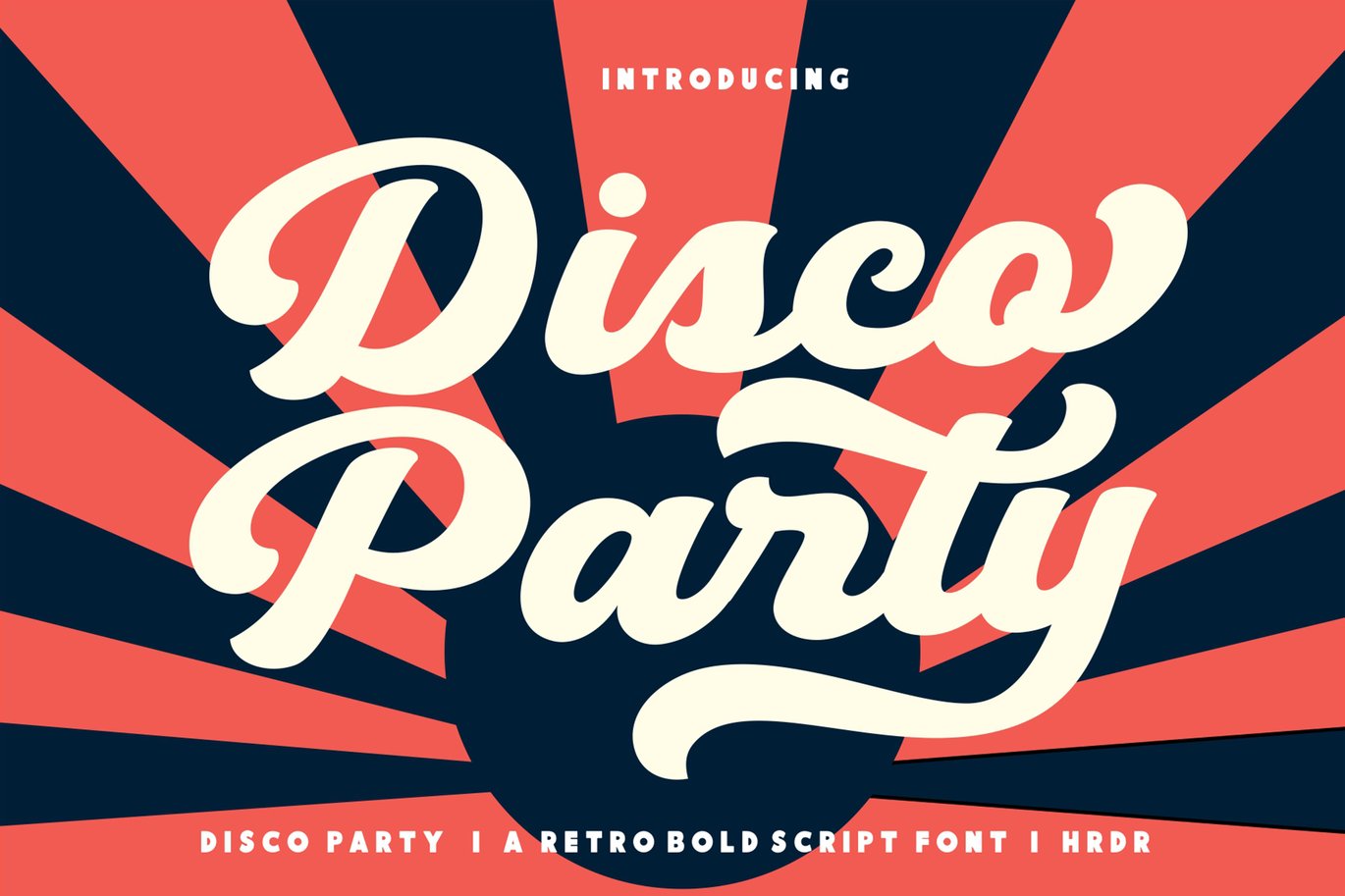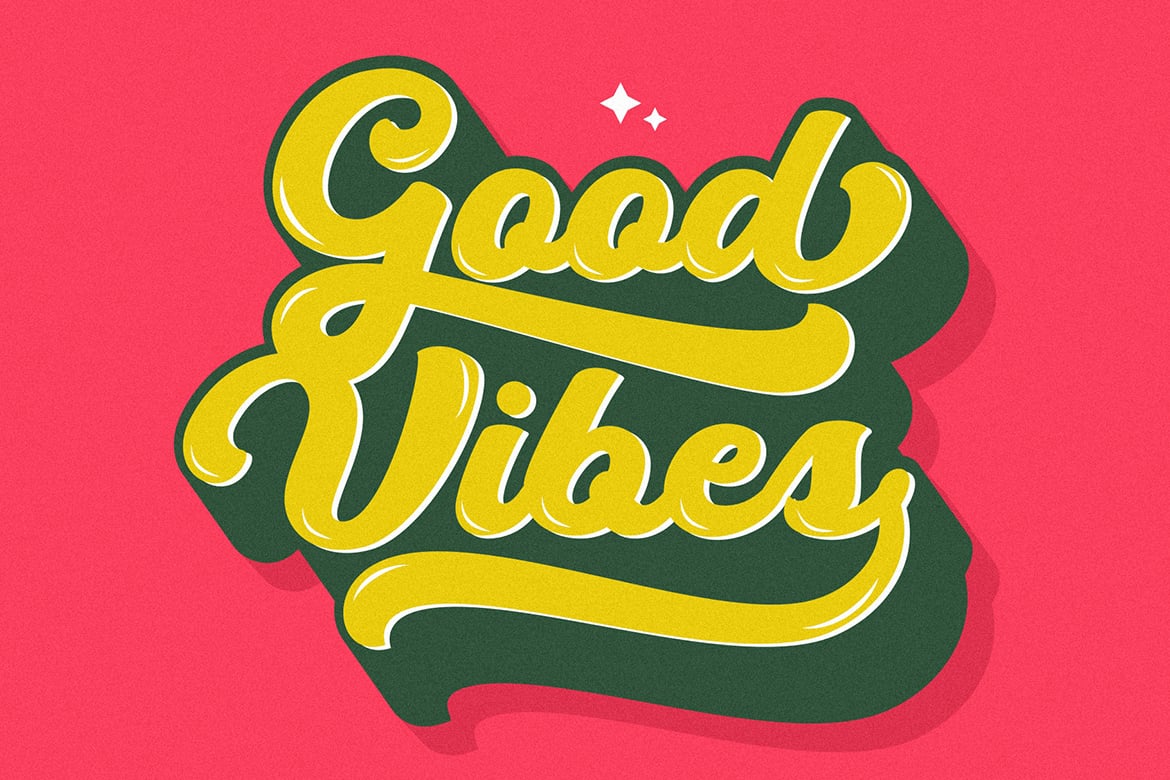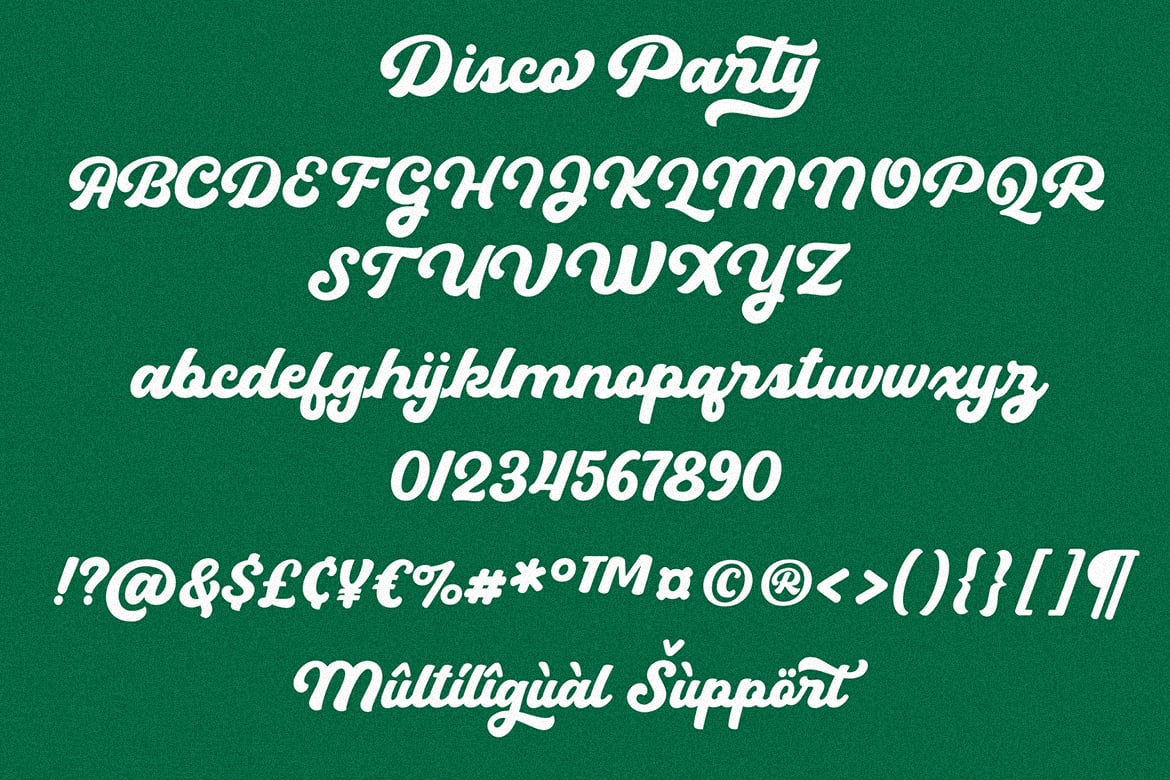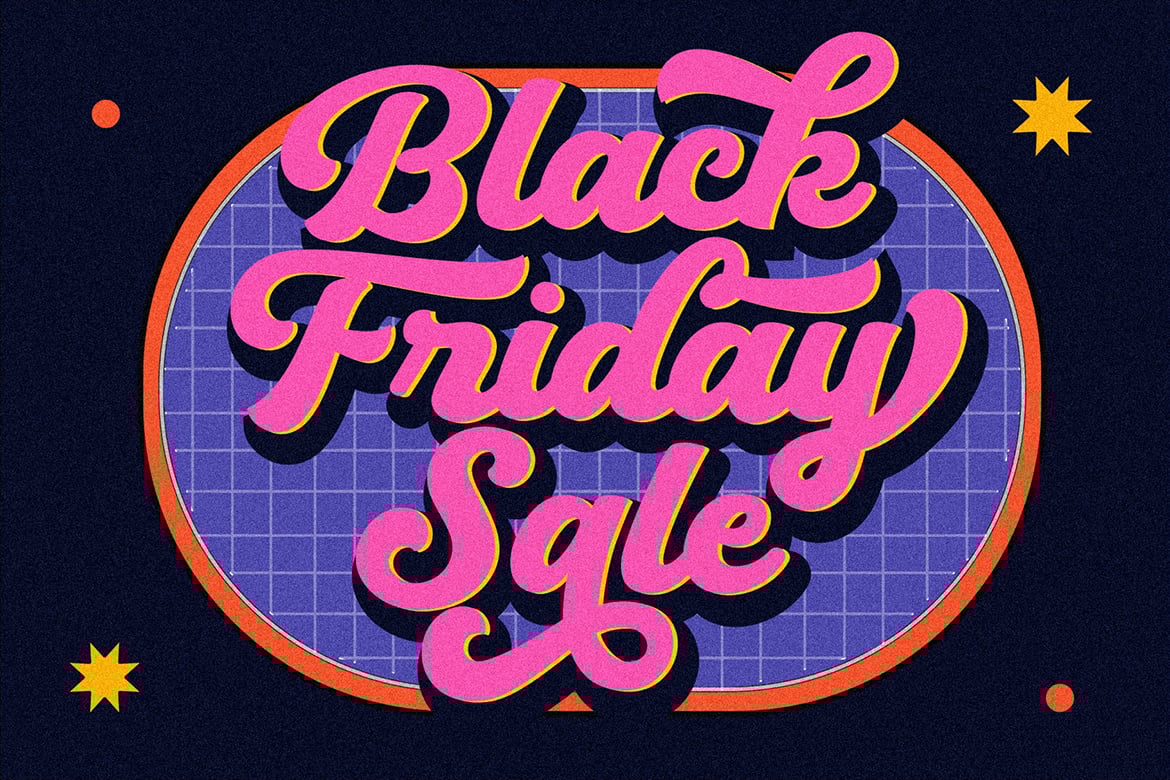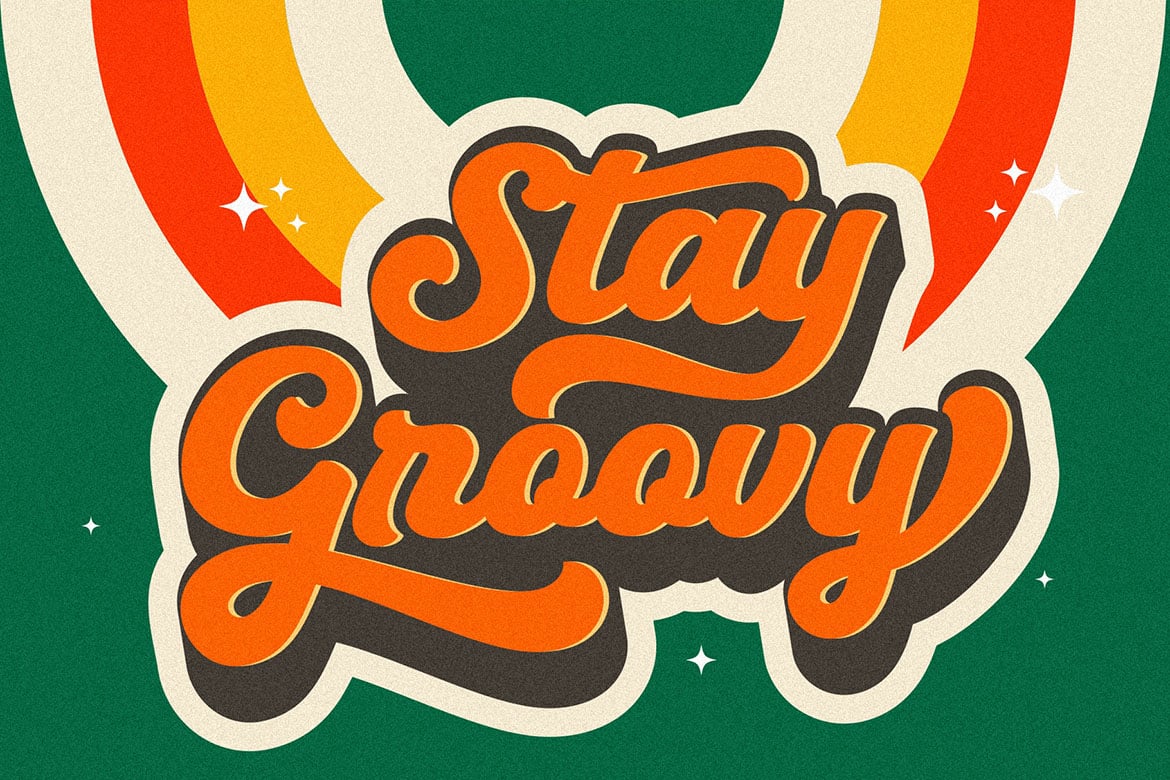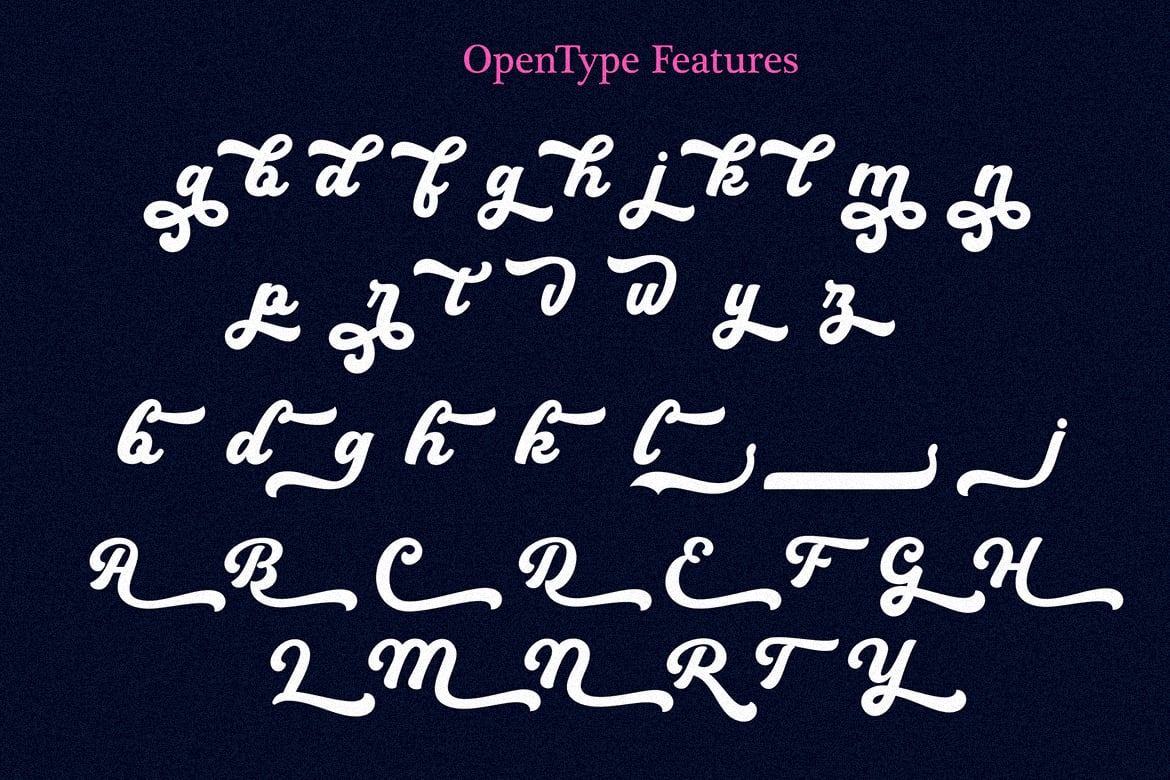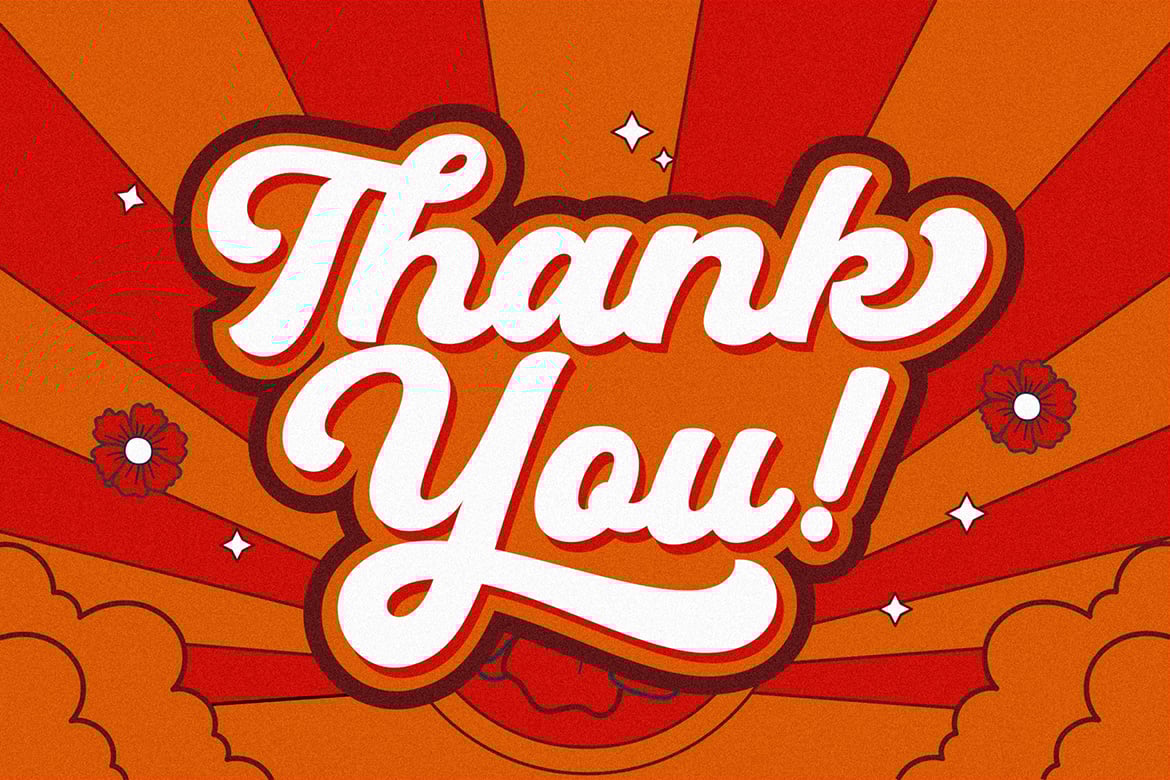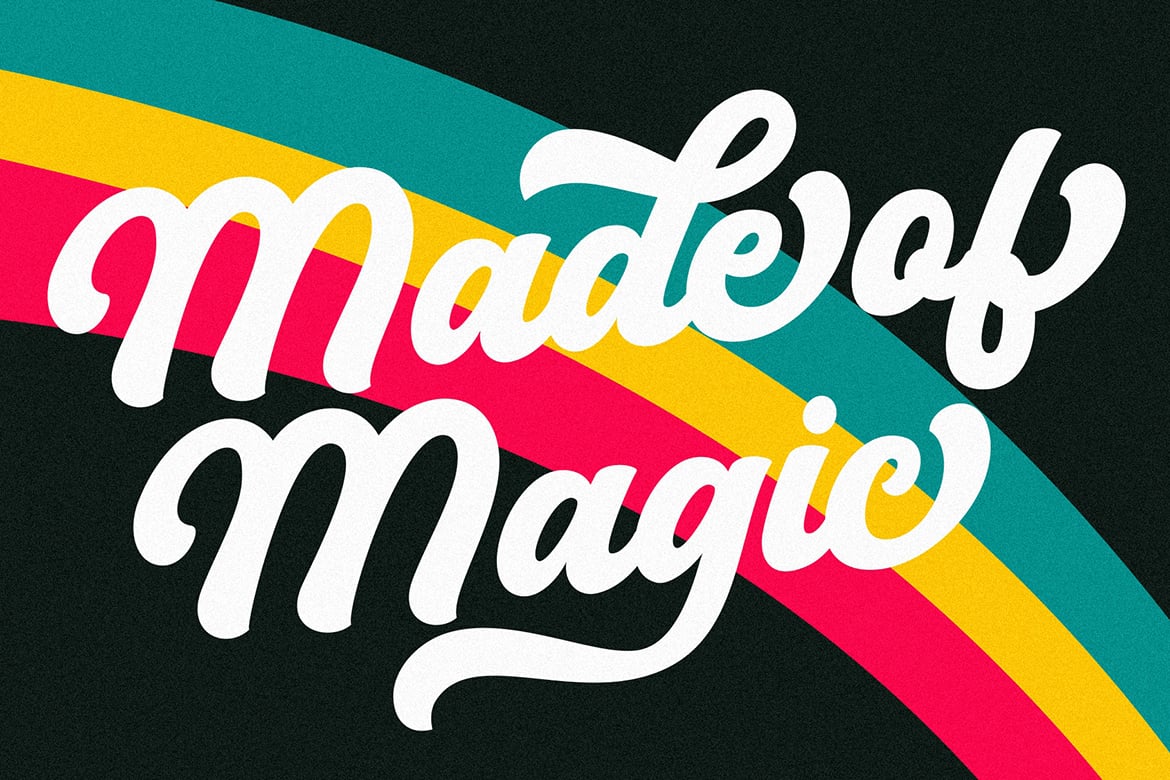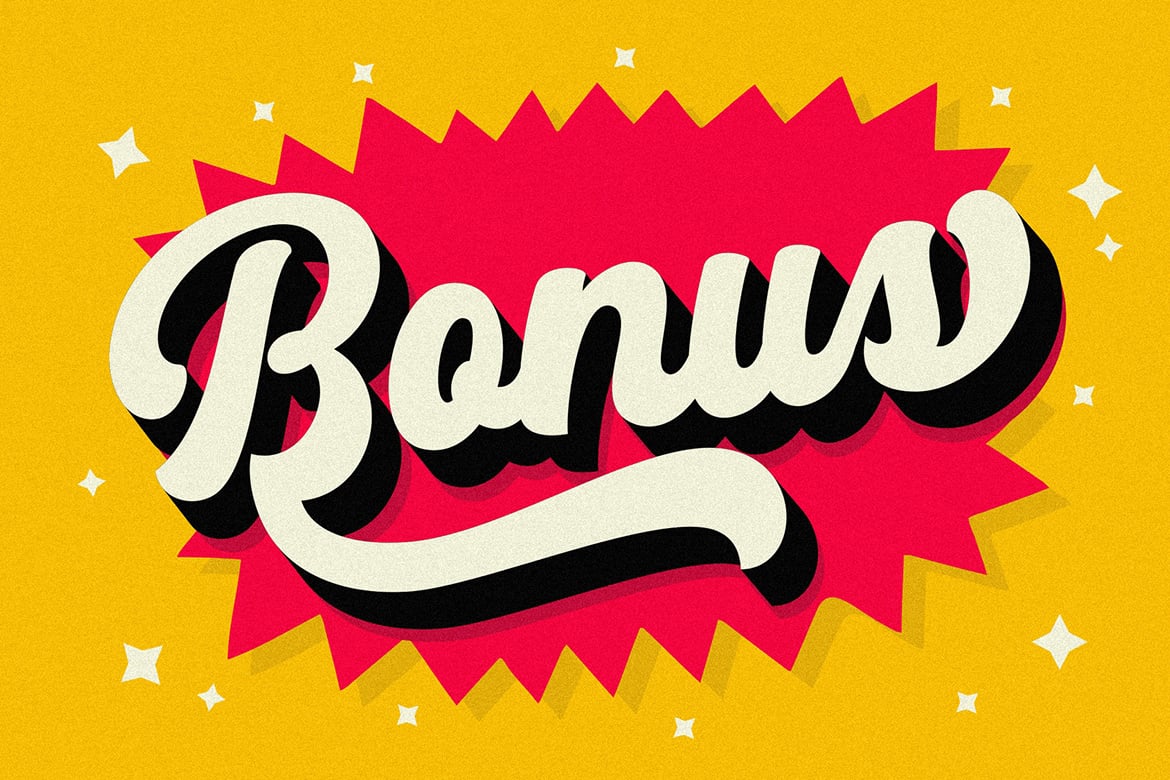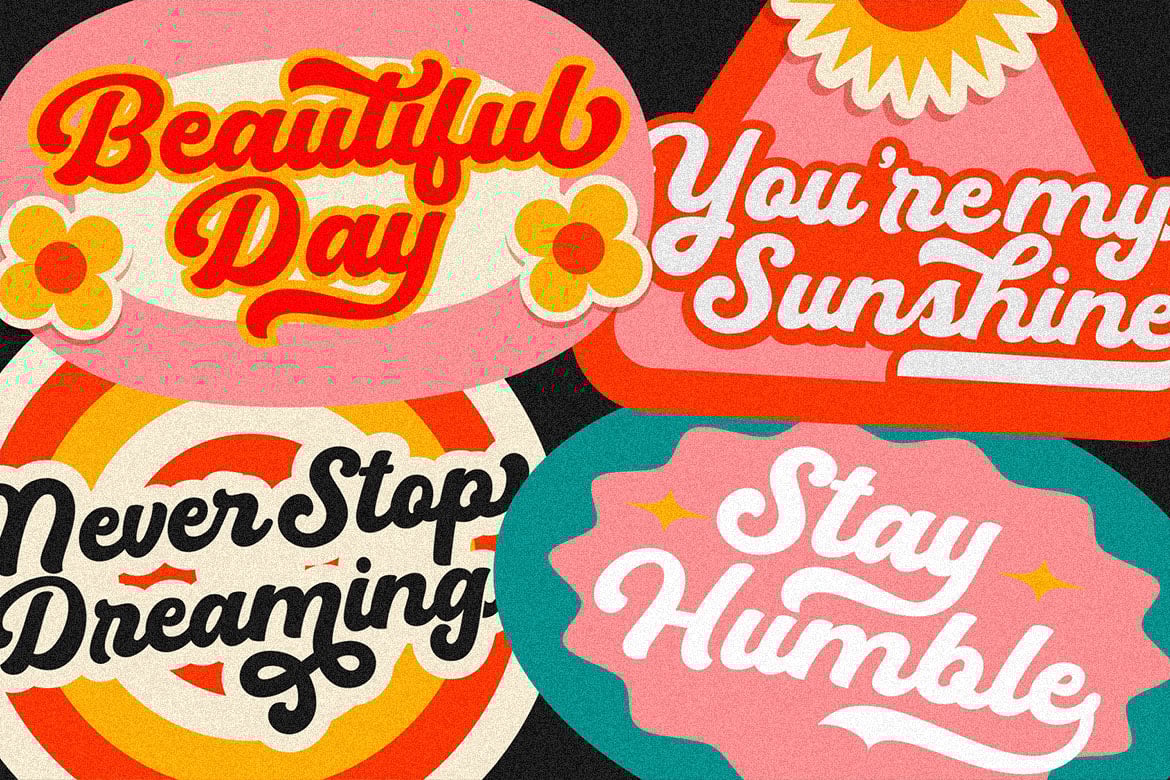
Disco Party – A Retro Bold Script Font
Disco Party Font is a Retro Script Font with a Bold style, inspired by the retro typography designs.
Font Features :
Lowercase
numeric & Multilingual support
Stylistic Alternates with (Ss01,Ss02, sS03 and Swash – Swosh )